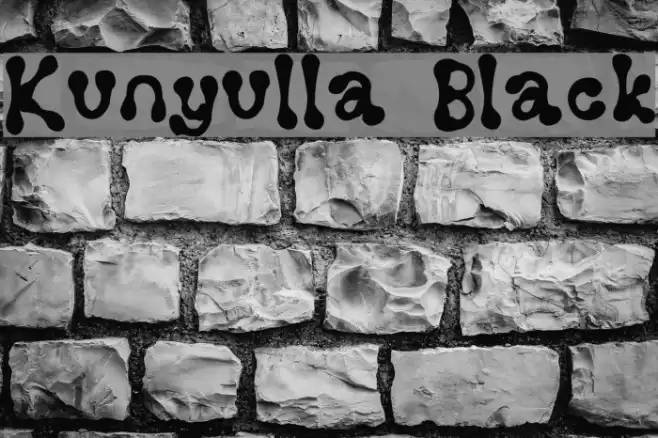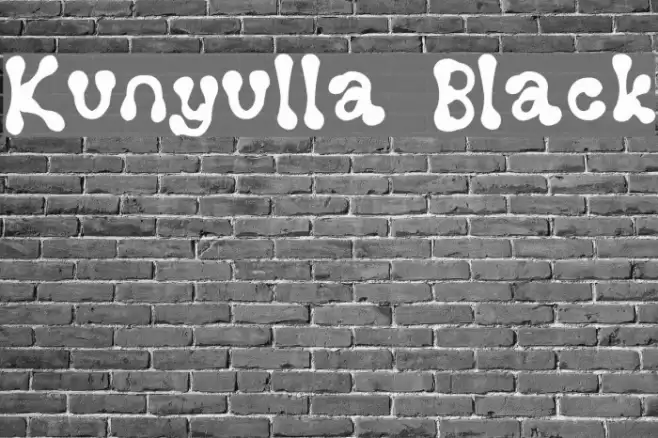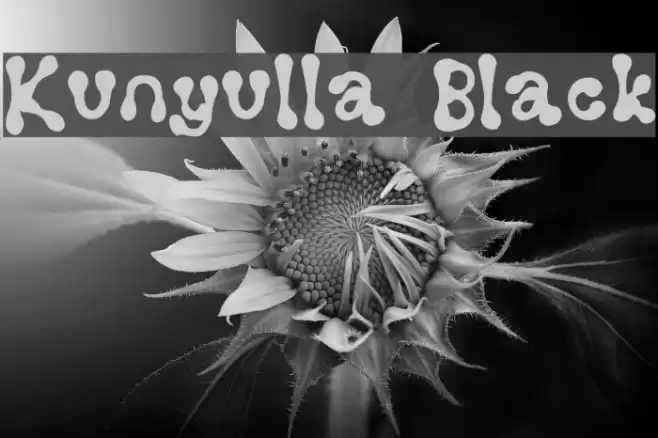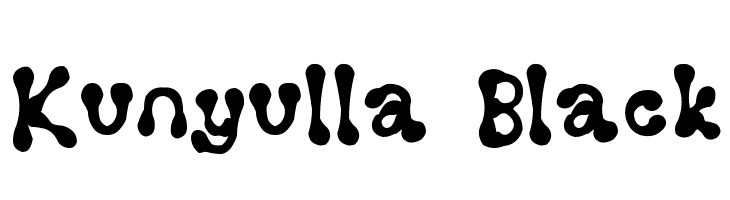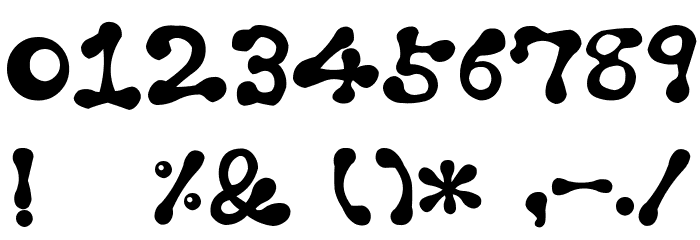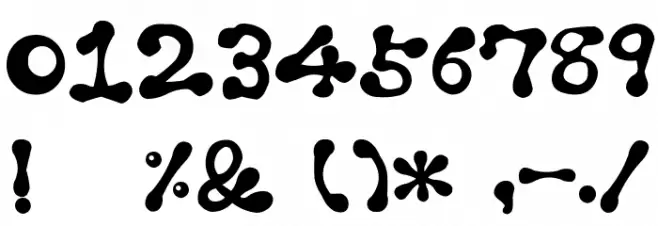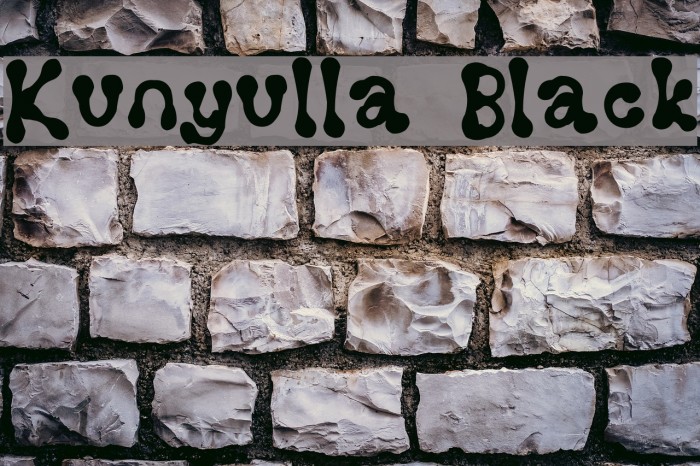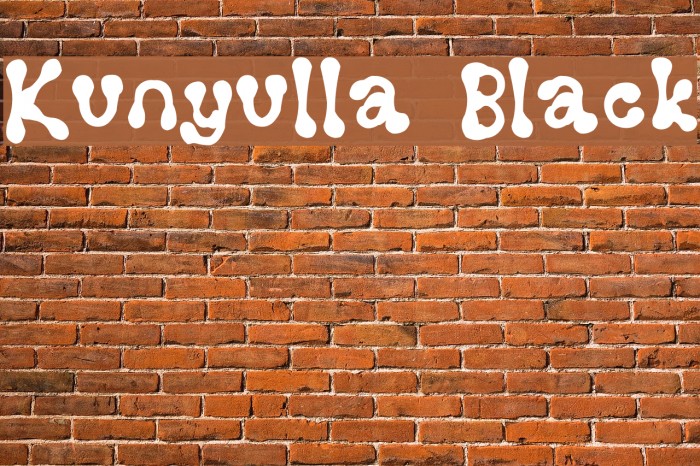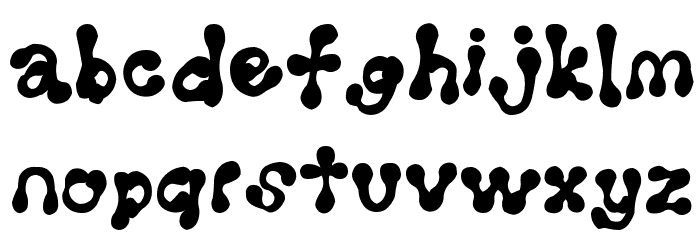
Kunyulla Black Font
Kunyulla Black Description
This font features a playful and bold design with a bubbly, organic appearance. The characters are rounded and irregular, giving them a whimsical and informal feel. The thick strokes and unique shapes make it stand out, making it suitable for creative and fun projects. The font maintains a consistent weight throughout, with each letter exhibiting a distinct personality. The overall style is decorative, with a touch of retro charm, making it ideal for eye-catching designs.
A playful, bold font with a bubbly, organic design from Uncategorized fonts.
- Proposed Projects: Ideal for children's books, playful branding, party invitations, and creative posters.